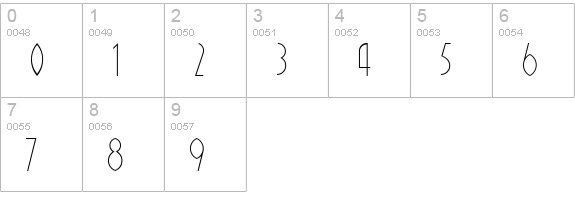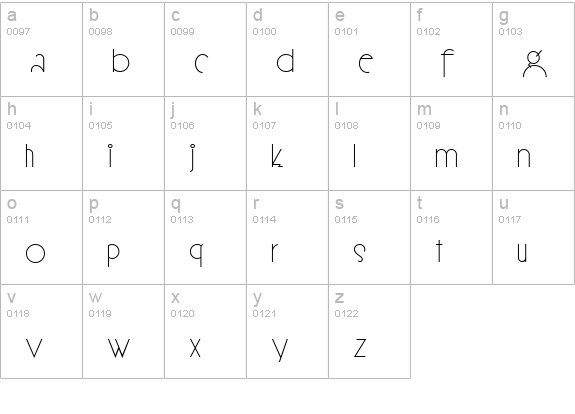
OK Chorale NF Font Details
OK Chorale NF is a stunning display font that exudes elegance and sophistication. With its unique blend of classic and modern elements, this typeface is perfect for adding a touch of charm to your designs. Its graceful lines and intricate details make it a versatile choice for a wide range of projects, from branding to invitations to editorial design. The best part? OK Chorale NF is completely free to download at FontsMarket.com. Yes, you read that right – this exquisite font is available at no cost, allowing you to elevate your work without breaking the bank. Don't miss out on the opportunity to enhance your projects with the timeless beauty of OK Chorale NF. Download it today and let your creativity soar!